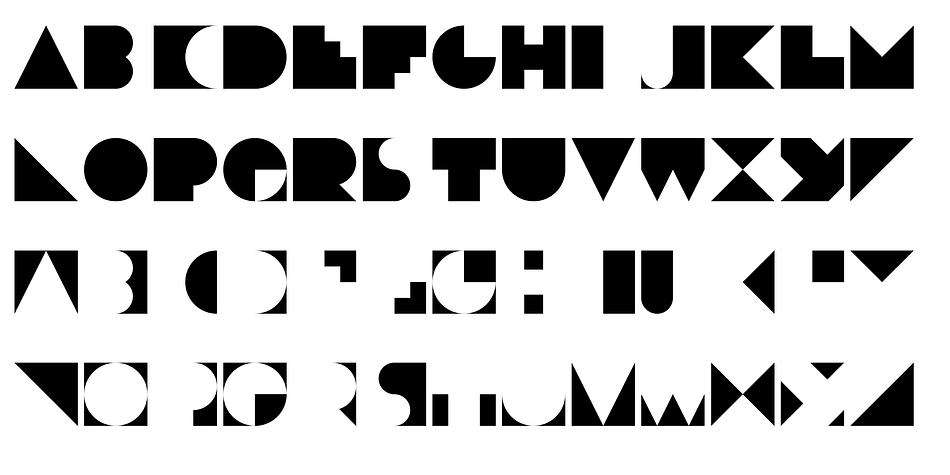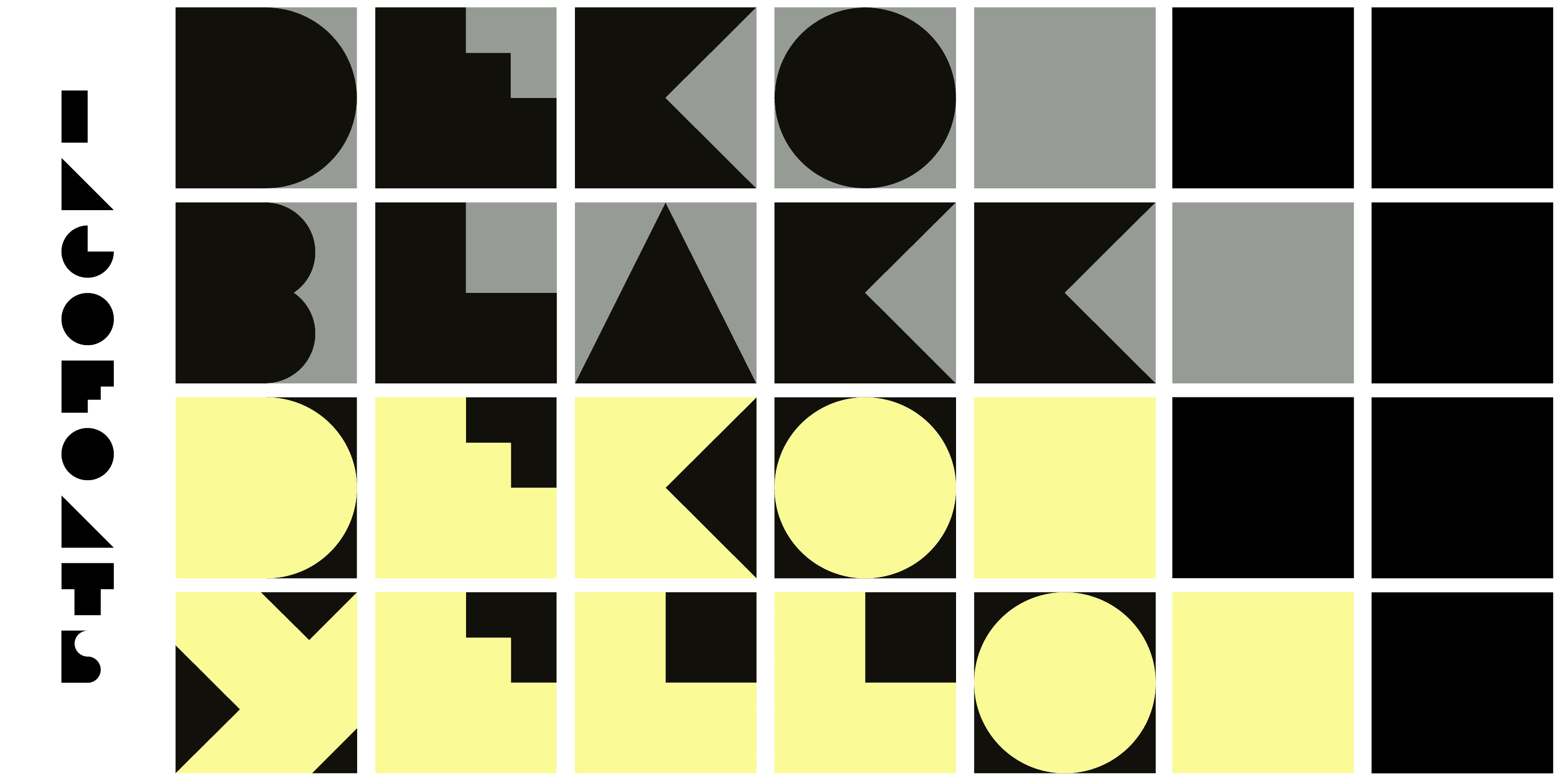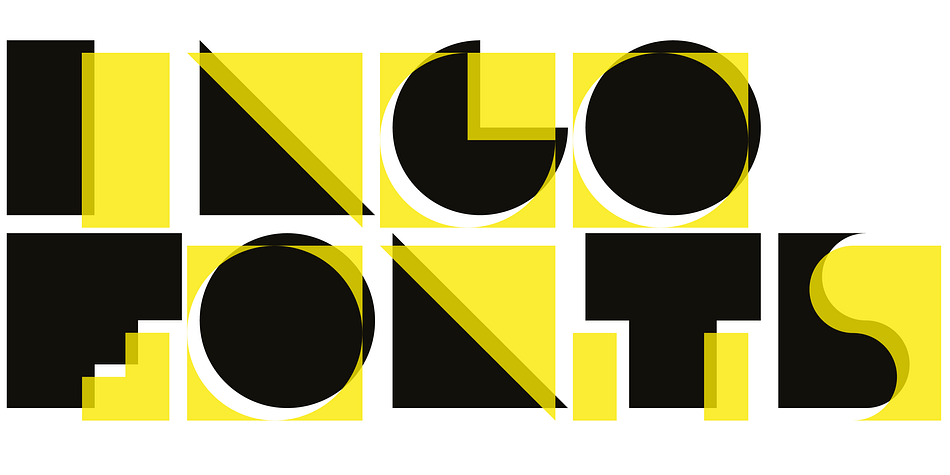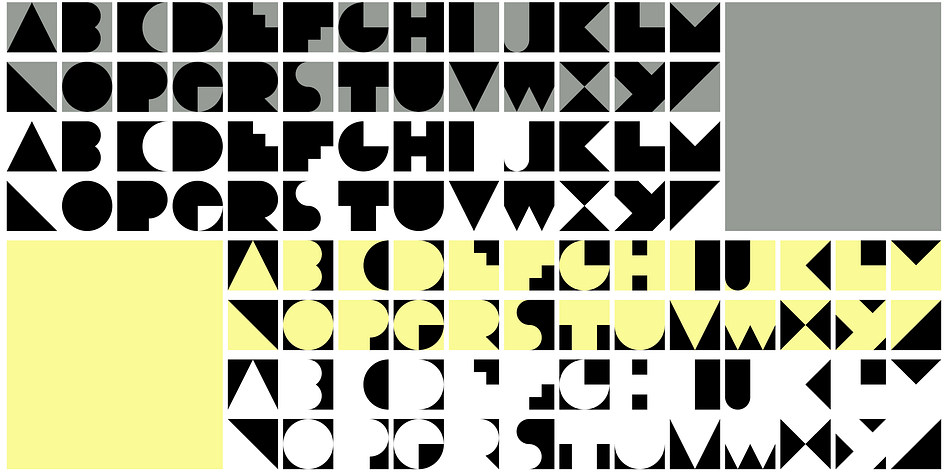
Designed by Ingo Zimmerman, Dékó is a art deco font published by ingoFonts.
Dékó is not really a font as such. Dékó is just decorative. But completely without frills. Geometric stems which are arranged in a square result in small graphic works of art. The characters are just barely still recognizable as letters. Each letter is its own little logo.
Stylistically, Dékó belongs to the late Art Deco, the De Stijl movement of the 1920s and Constructivism of the 1930s. But even in the 1950s and 60s there were movements in design which cultivated this type of shape language.
Dékó consists of two fonts: Dékó Blakk and Dékó Yello. Both contain the exact same characters with the exact same adjustment but with one difference:
Dékó Blakk represents the positive form of the letters whereas the coordinating negative form is found in Dékó Yello.
Together, one on top of the other, they result in a full square for each letter consisting of a foreground and background. Depending on the combination of both fonts, vivid effects are more or less attained.